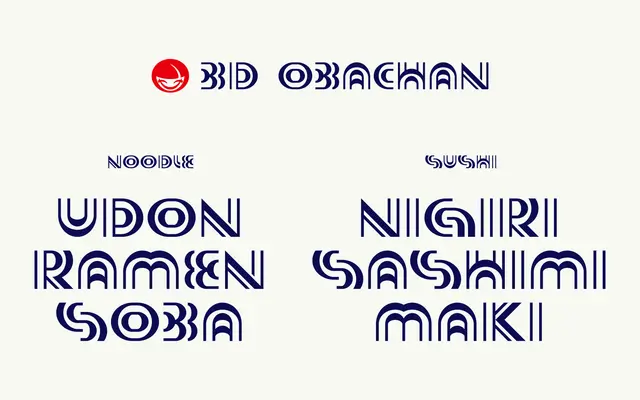
BD Obachan
Type Different · 2025
An experimental uppercase display typeface drawing on Asian calligraphic forms, updated and extended from the 2005 BD Mandarin.
Strictly uppercase, BD Obachan applies stylised strokes reminiscent of East Asian brushwork to Latin capitals, producing letterforms suited to packaging, poster design and branding that want a culturally inflected character. It is an update and expansion of BD Mandarin, originally designed in 2005, and ships in a single Regular weight. Latin Extended support covers a broad range of European languages.
An experimental uppercase Latin typeface with Asian calligraphic-inspired letterforms, placing it firmly in the novelty display category rather than any conventional classification.